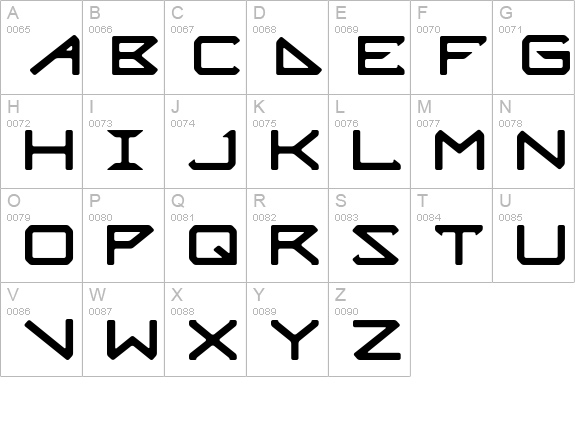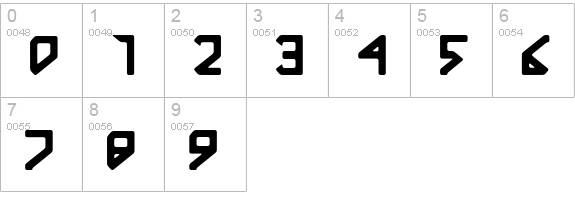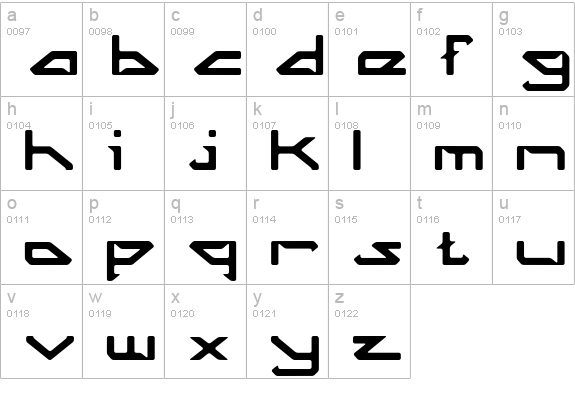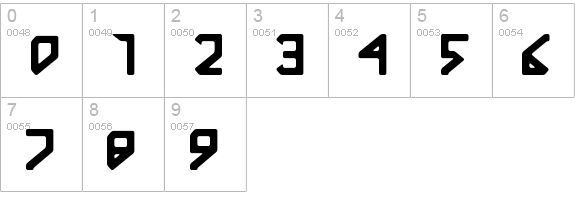
Octicity Font Details
Octicity font is a modern and stylish typeface that strikes the perfect balance between elegance and readability. With its clean lines and subtle curves, Octicity is versatile enough to be used in a variety of design projects, from branding and packaging to editorial layouts and web design. This font exudes a sense of sophistication and professionalism, making it ideal for creating a polished and refined look. Its unique design elements add a touch of creativity and flair, setting it apart from more traditional typefaces. Octicity is available for free download at FontsMarket.com, where you can easily access this high-quality font to enhance your projects. Whether you're a graphic designer, a web developer, or a creative enthusiast, Octicity is sure to elevate your designs and make a lasting impression. Unlock the potential of your work with this elegant and versatile font that is both visually appealing and easy to use.